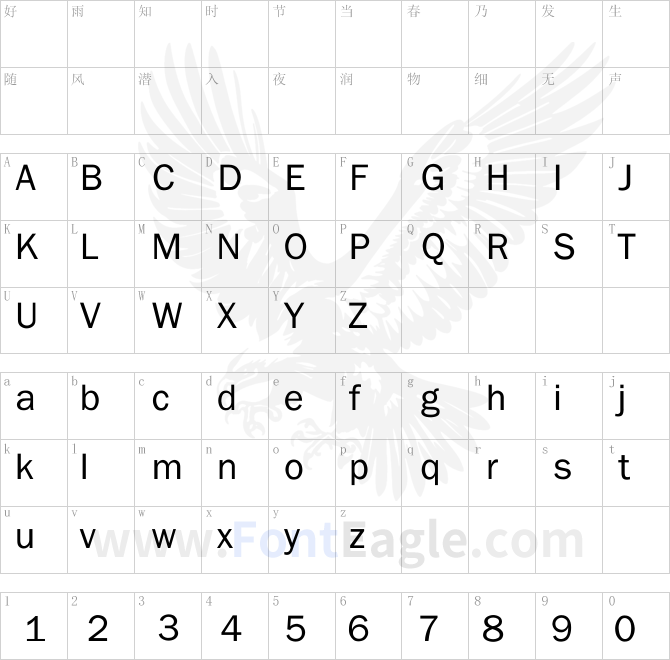
- Font name:Billiton Gothic
Billiton-Gothic is a great font, widely used in graphic design, single-page menu design, poster design and other fields, and is deeply loved by designers.Billiton-Gothic download.